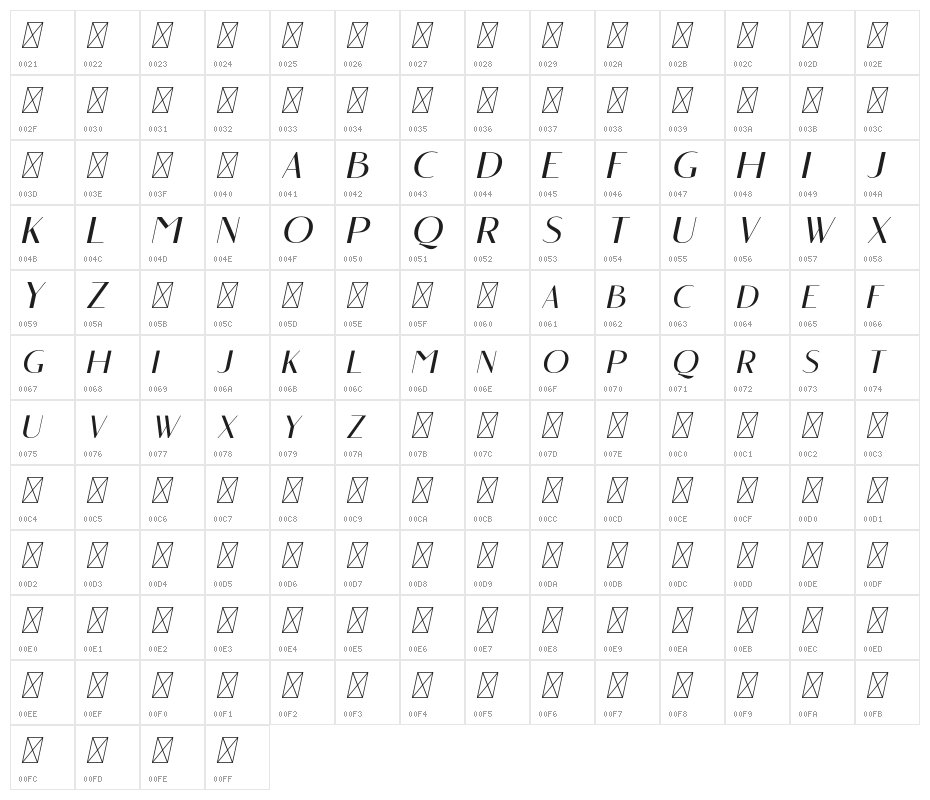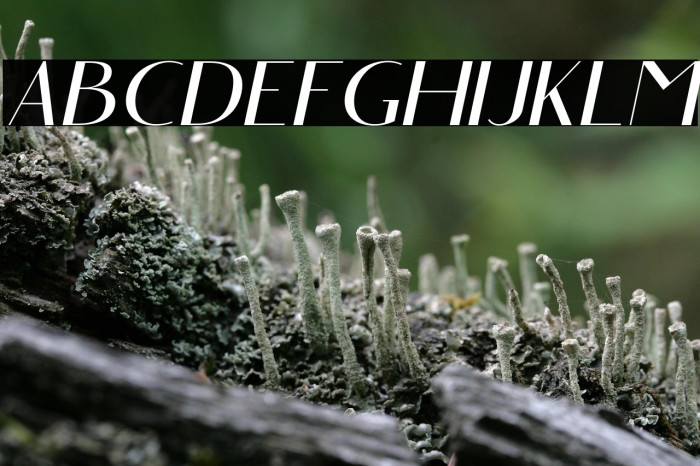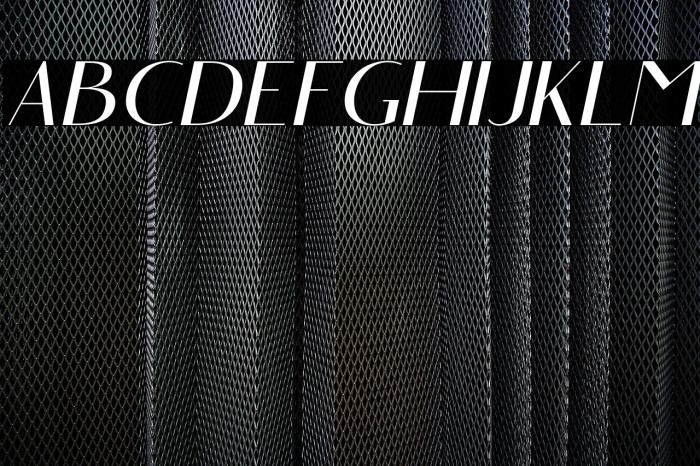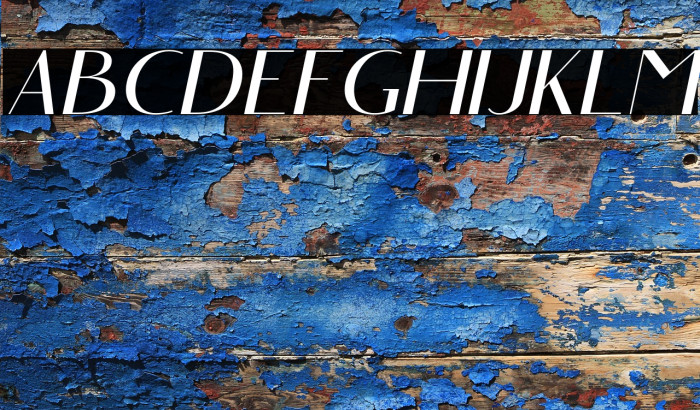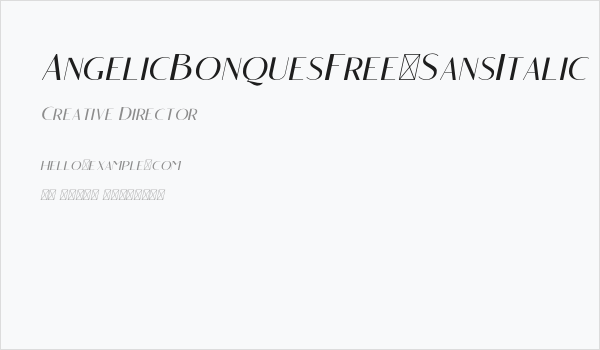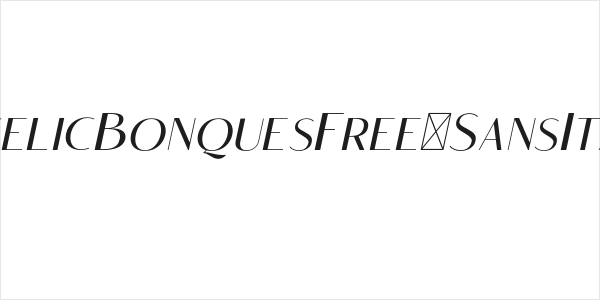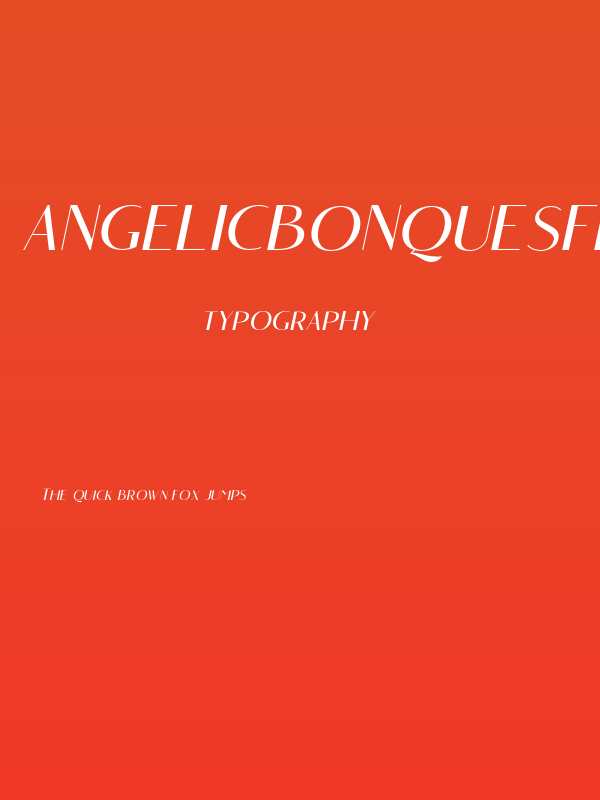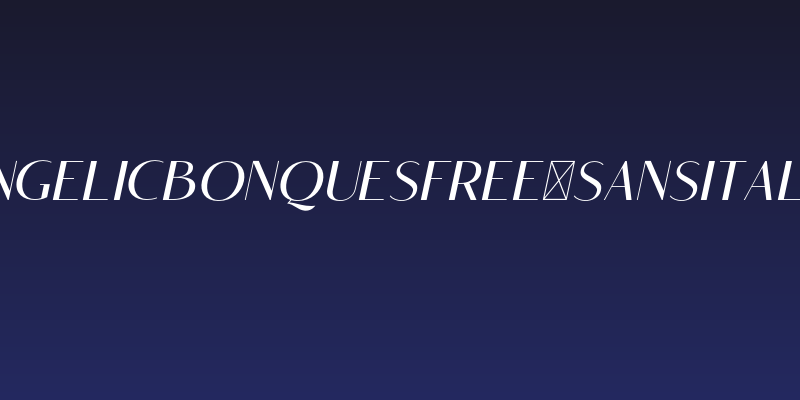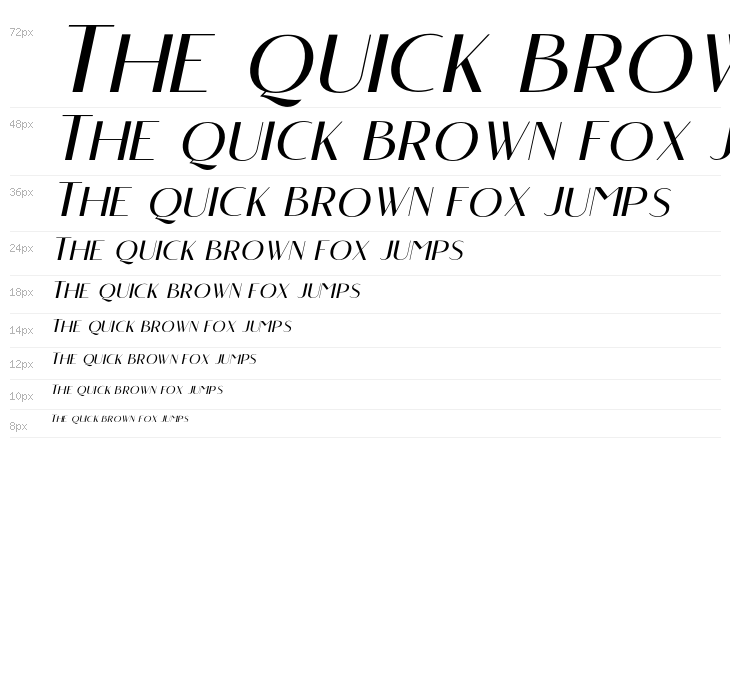
AngelicBonquesFree-SansItalic Font
AngelicBonquesFree-SansItalic Description
This font features a sleek and elegant design with a modern sans-serif style. The characters are slightly italicized, giving them a dynamic and forward-leaning appearance. The strokes are clean and consistent, with a medium contrast between thick and thin lines, adding a touch of sophistication. The uppercase letters are tall and commanding, while the lowercase letters maintain a harmonious balance. The numbers are clear and easy to read, and the special characters are distinct and well-integrated. Overall, this font exudes a sense of modernity and professionalism, making it suitable for a variety of design applications.